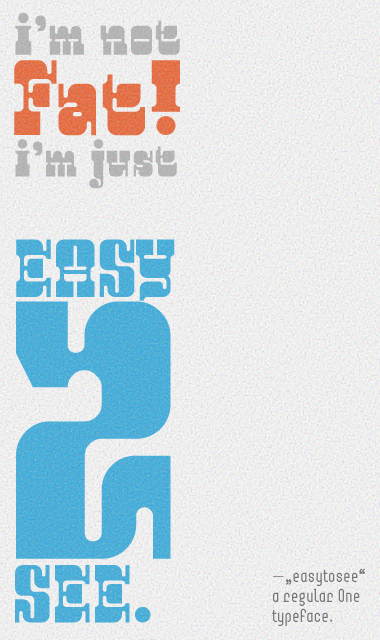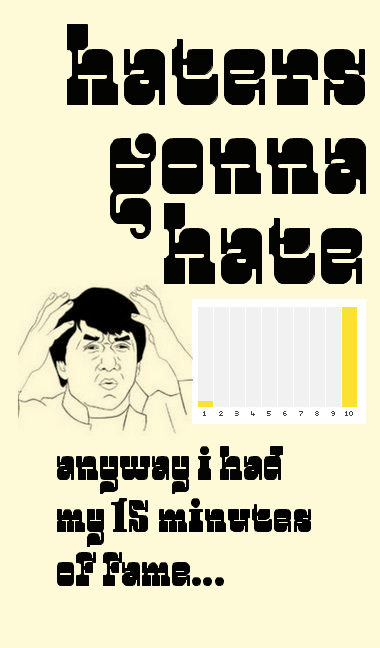
This is a definite 10!
Looking forward to UC, numbers & punctuation.
Wow, this is cool and innovative!
Can't wait to see when it finished...
Love it!
Just one thing though - not sure how easy it is, but I'd be tempted to reduced the width of the i, j & l a little bit.
What a pretty one! ¡Qué bella fuente! I like a looot this kind of fonts, pal!
Awesome font! Love the 'scenders. 10/10 +fave!
Very good! TP candidate! 10/10! Must stop using exclamation mark! Oh darn...
Groovy Western-style font. 10.
Looking forward to more - very nice indeed. 10/10
thank you all for your comments. uppercase it's kind of hard for me… so this might take a while.
WOW. You really raised the bar with this one. Excellent work. 10/10
Funky! 10/10
That was quick! Fantastic U/C ... pity I can only give it the one 10.
Well deserved!
Greeeat font, compañero, you made it! I'm in love with it from the beginning! Congrats for this well deserved TP!
BTW, I ask you about this: something is wrong on the central "e", IMHO.
Look at this "e", please.
Very nice "alien western".
@elmoyenique: actually this was intentionally… and i was waiting for someone to discover it. :) It was supposed to be an alternate e. what is your favorite? normal or the smiling one?
I must say the 'ê' has an alien quality that suits the font well :)
Some excellent alterations, and very nice uppercase. Well done.
great work great design great creation
Bravo
Def 10... pow
lc c and lc ç are diferent!
Brilliant. Hard to read for text stuff but so what—for eye-(and brain)-catching display, (y'know, just a few words like for a headline), it's a-bunch-of-things-at-once terrific!
ê looks different.
@alek And so is e and ê!
Is ç your alternate c?
This is the font for BrickByBrick!
Matching the Brick by Brick font!
@Fluxxor392 Thats correct. @RYvett (DDDaniel) Not matching. It is :) And i'm still a bit proud.
The 1 looks taller than the rest of the number.